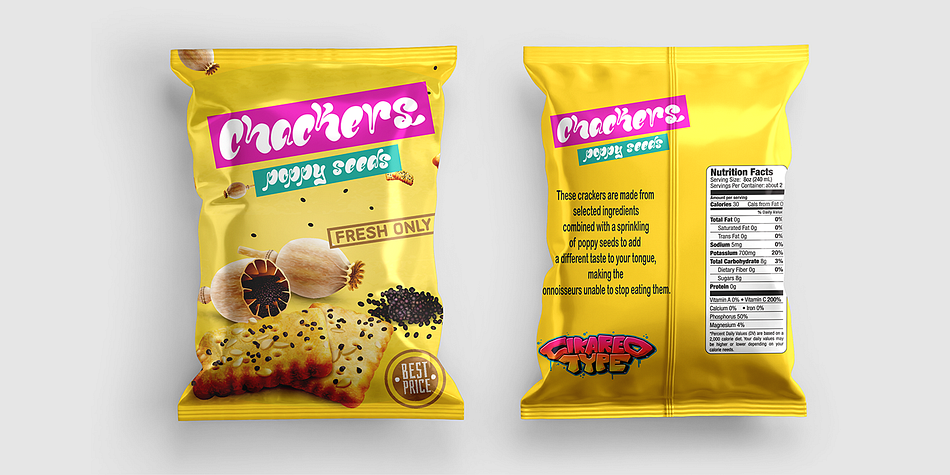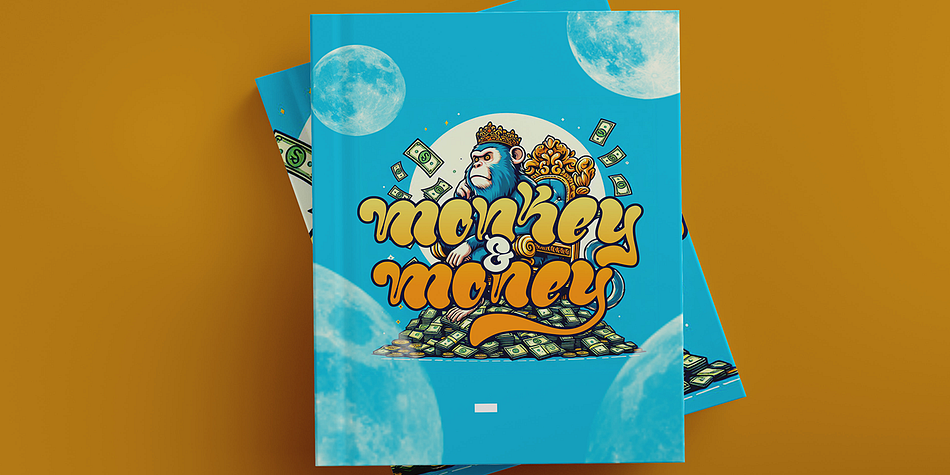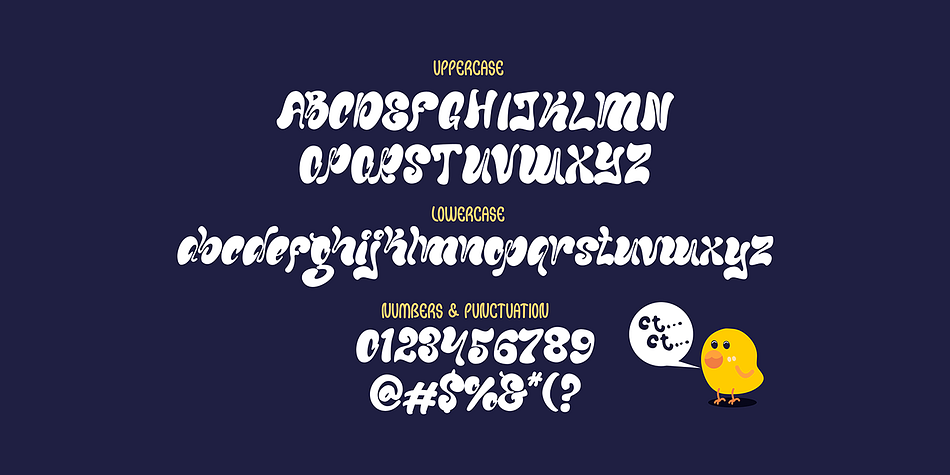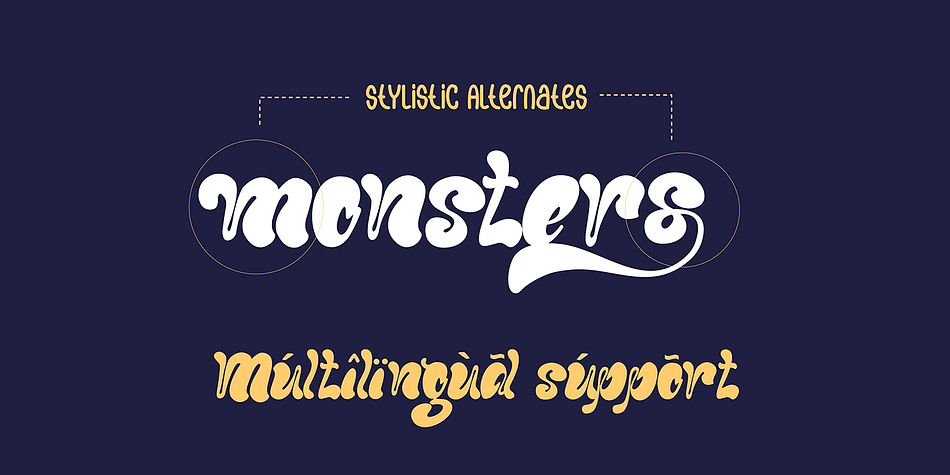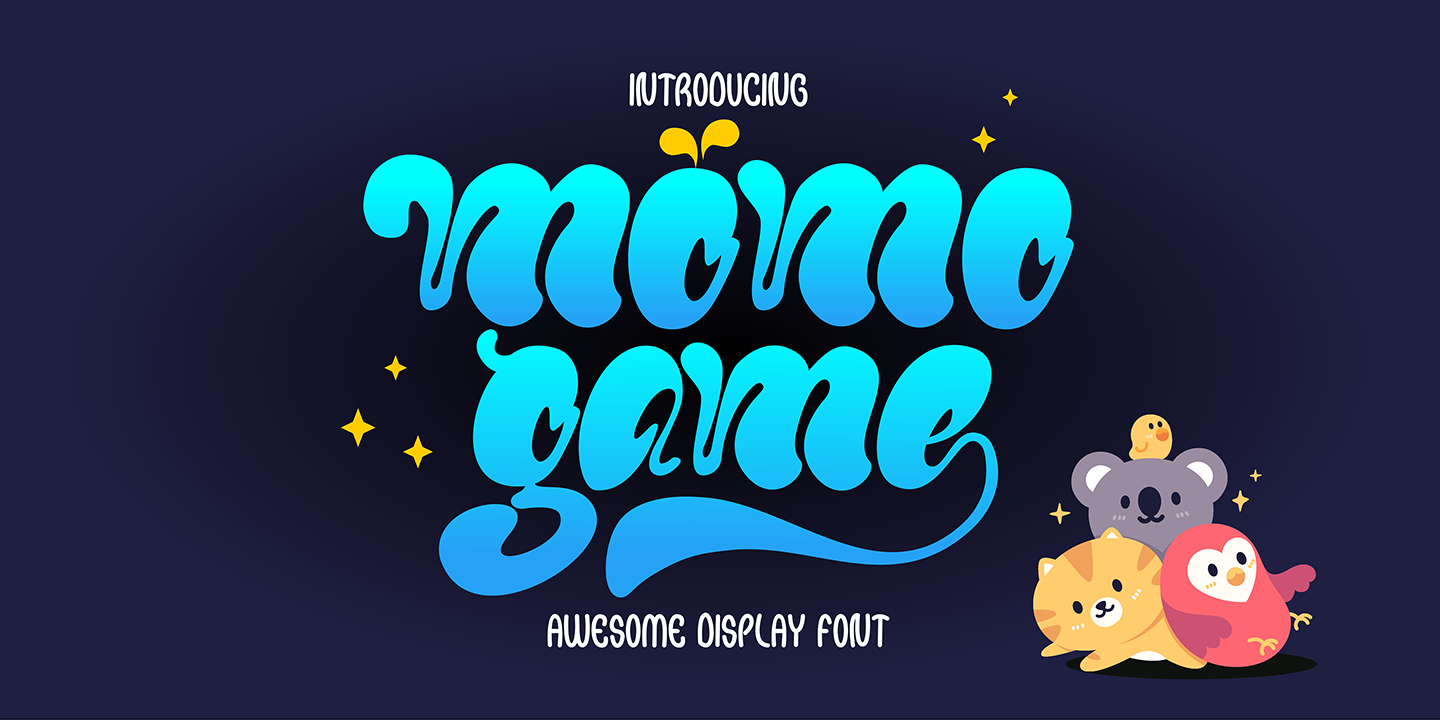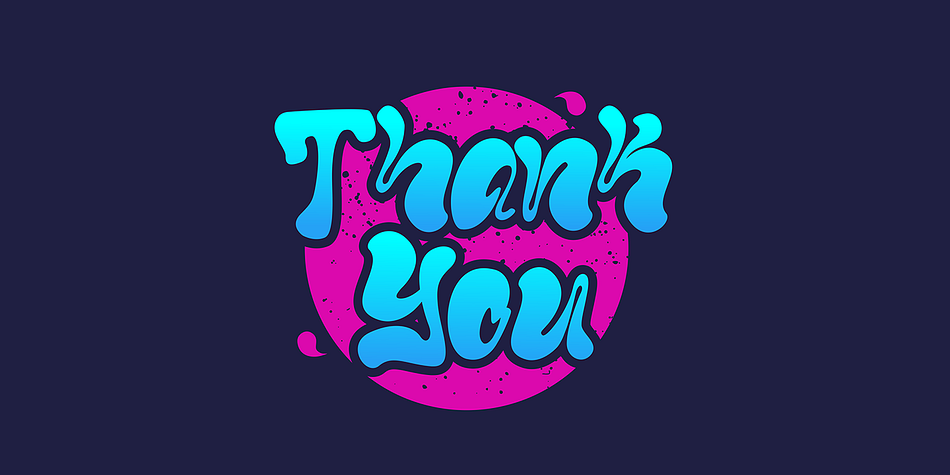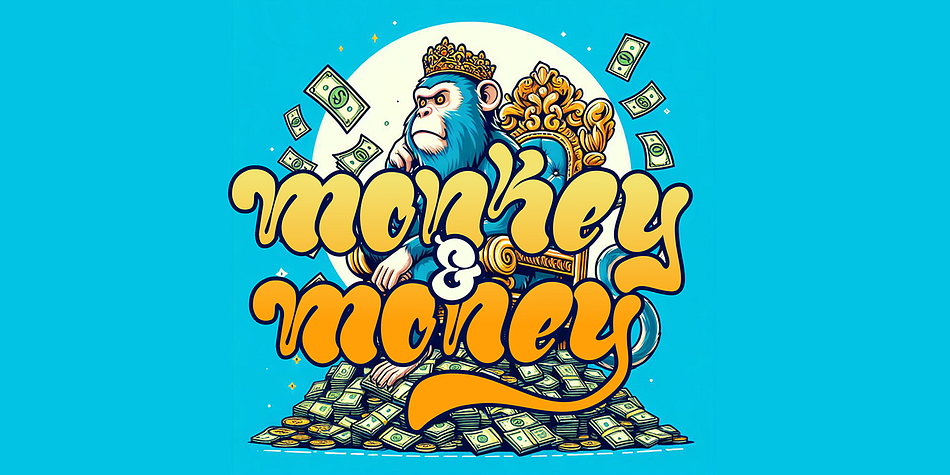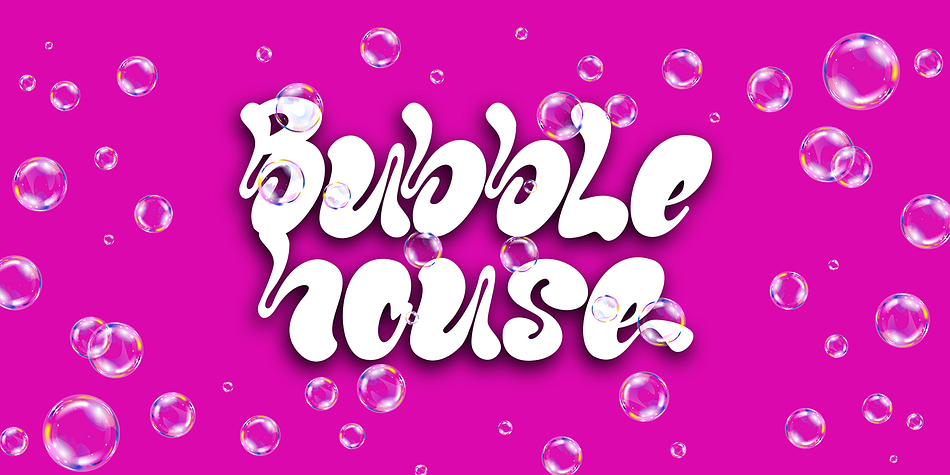
Momo Games
Momo Games is a retro font family published by Cikareotype Studio.
“Momo Game” is an endearing display font characterized by its cute and chubby characters, complete with stylistic alternates. This playful typeface exudes a whimsical charm, making it perfect for projects that require a fun and friendly vibe. With its dynamic typography and included stylistic alternates, “Momo Game” offers versatility and character, allowing designers to create eye-catching designs with ease. Whether used for children’s books, playful branding, or cheerful posters, this font adds a touch of charm and personality to any project, making it a delightful choice for designers seeking a quirky and dynamic typeface.